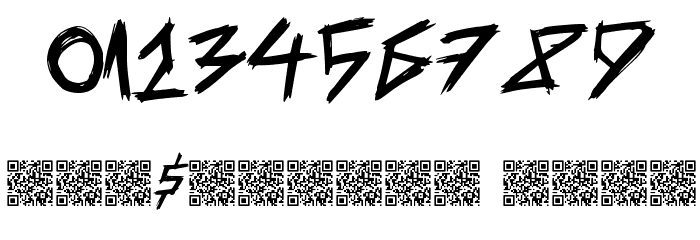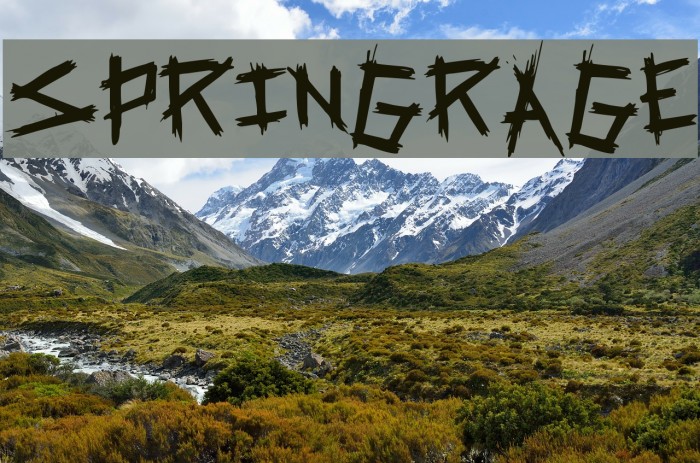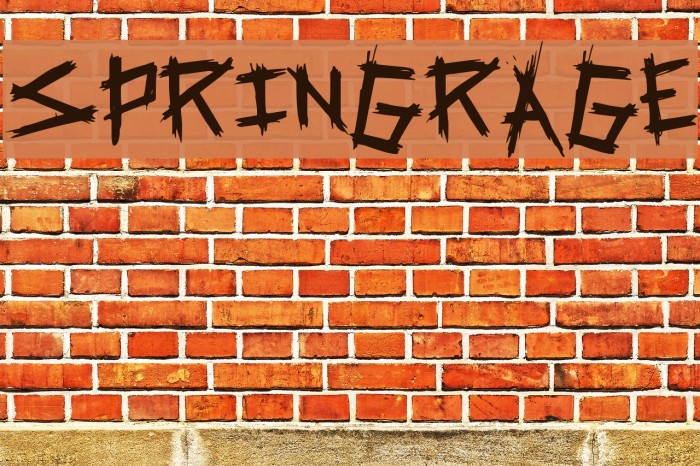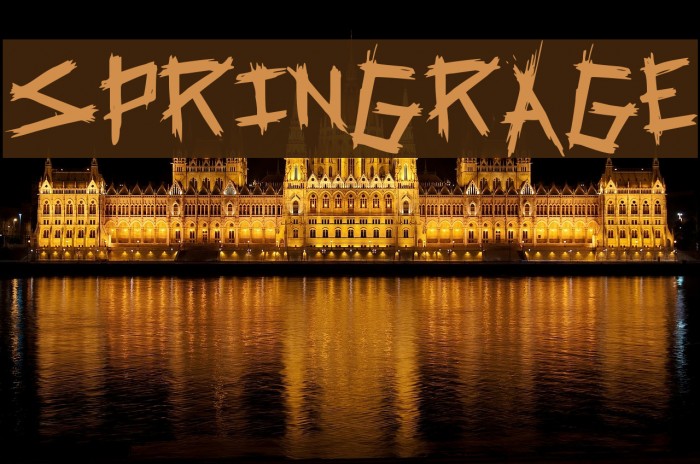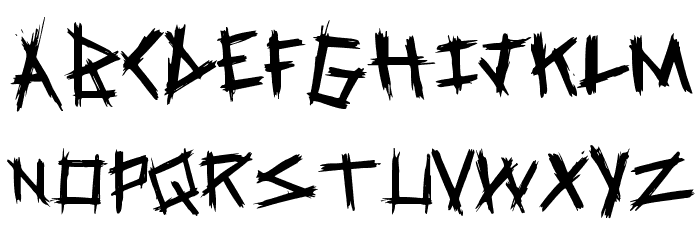
SpringRage Font
SpringRage Description
This font features a bold, jagged style with an edgy and rebellious aesthetic. The characters are designed with sharp angles and irregular strokes, giving it a chaotic and dynamic appearance. The uppercase and lowercase letters maintain a consistent theme, with each character appearing as if it has been scratched or carved. The numbers and special characters follow the same design principles, ensuring uniformity across all glyphs. This font is ideal for projects that require a raw, energetic vibe, such as music album covers, posters, or any design that aims to capture attention with its striking and unconventional look.
| Overall Style | Edgy, Rebellious, Chaotic |
| Use Case | Headlines, Posters, Album Covers |
| Proposed Projects | Ideal for music album covers, posters, and designs needing a raw, energetic vibe. |